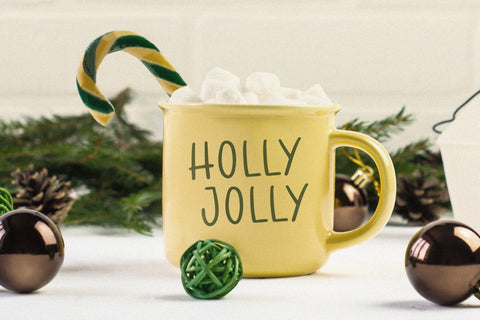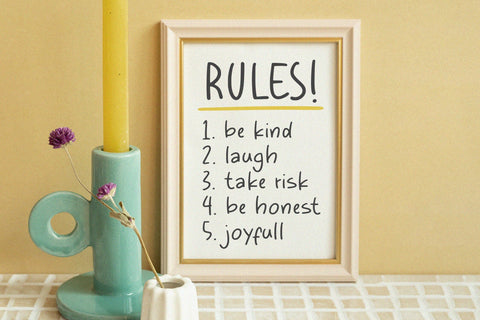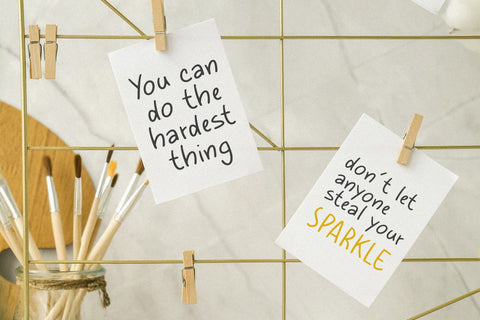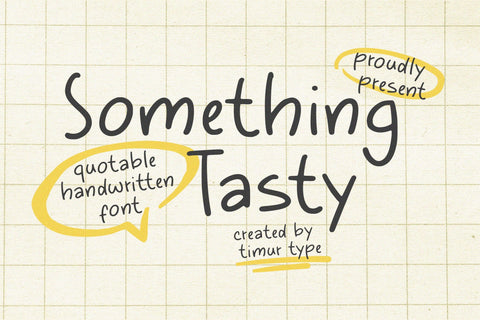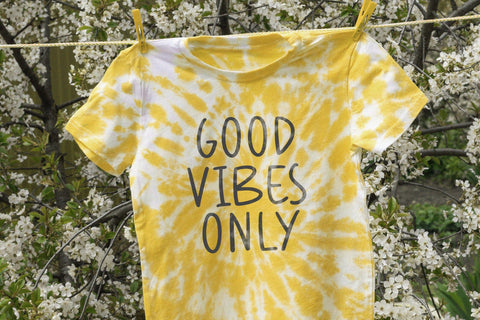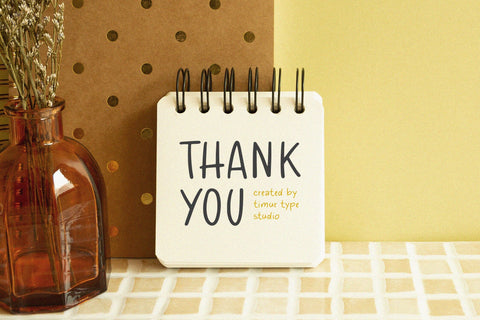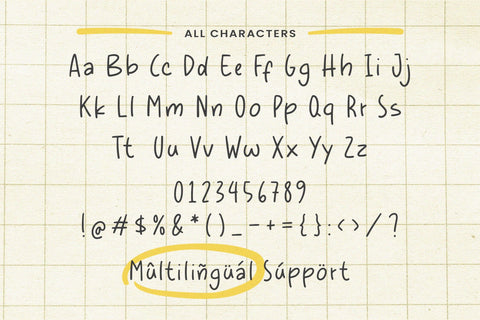
Something Tasty - Quotable Handwritten Font
Something Tasty is a Quotable Handwritten Font
This font is a charming handwritten font that exudes warmth and personality. Perfect for quotes, logos, and creative projects, it features playful, flowing letters with a casual yet stylish feel, making your text stand out with a touch of whimsy and authenticity.
Something Tasty also supports multilingualism